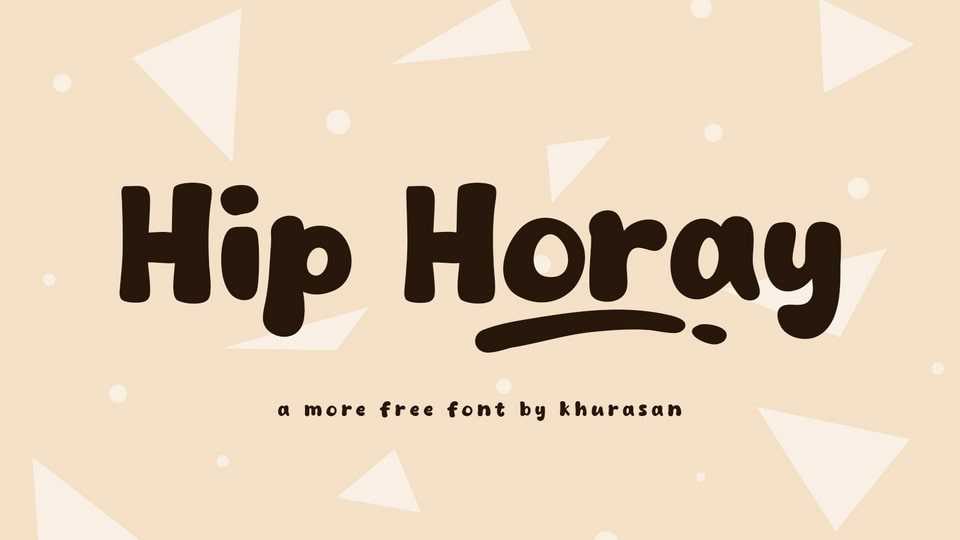
Download Hip Horay font, a friendly hand-drawn typeface is all about spreading joy and creating a warm, approachable atmosphere. Hip Horay font is your go-to choice when you want to infuse your projects with a sense of whimsy and lightheartedness.